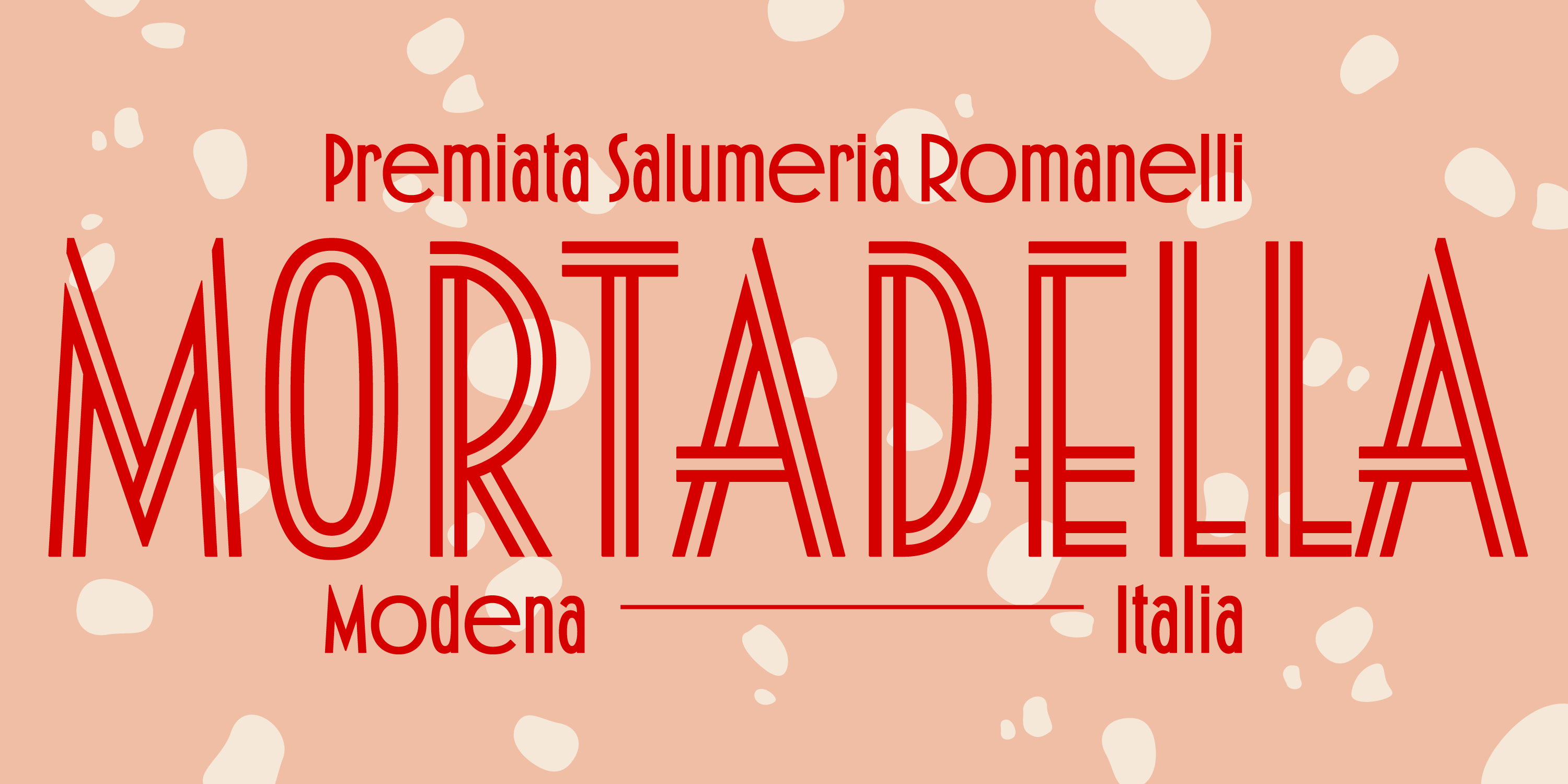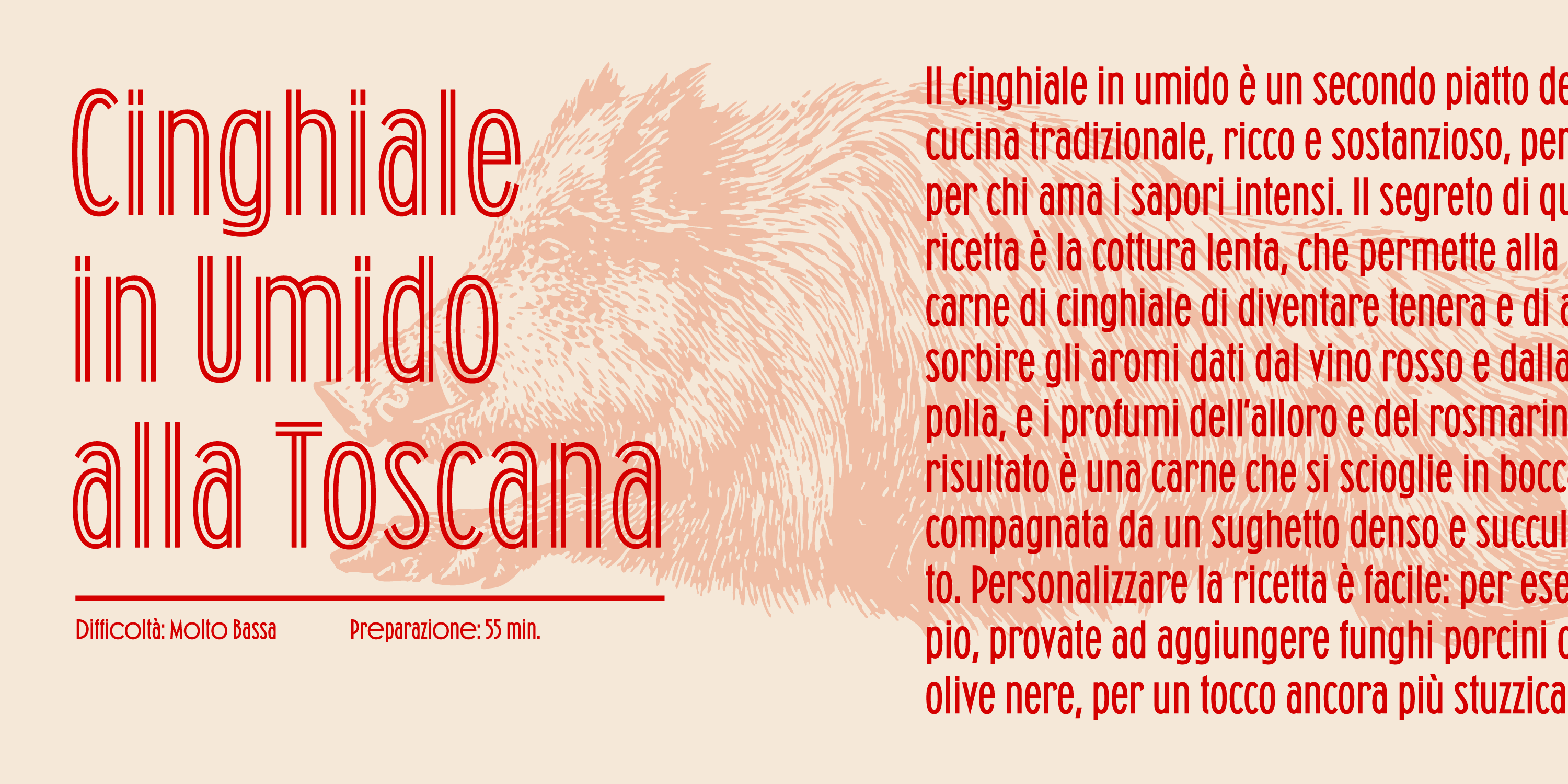
Macallè
Macallè is a bold, compressed sanserif with a notably big x-height covering over 70% of the body. It features Art Déco elements, such as the low bars of A, E, F and H which also extend beyond the stems to the left. These particularities recall Guido Modiano’s best-selling Triennale typeface (Reggiani, 1928) – even though Triennale did not include a lowercase. Another interesting feature of Macallè is the inclusion of a wide, circular version of round letters C, G, O, as well as their matching lowercase versions.
Alessandro Colizzi
Macallè was released as wood type by Xilografia Internazionale of Legnago (a town 40 km south of Verona) around 1936 and was available in sizes ranging from 4 to 20 lines – roughly equivalent to 50–250 points. It is identical to another typeface named Arancio, which is found in specimens issued by Xilografia Italiana, another wood-type manufacturer located in Verona. However, some years later, Xilografia Internazionale issued another type specimen showing Macallè and an inline version named Adigrat.
AM Macallé is remarkably faithful to the original. ‘The digital revival,’ says designer Alessandro Colizzi, ‘allowed for an optimisation of both design and spacing. OpenType features provide access to the wide circular alternatives and notably to the inline version (the former Adigrat) which is now included as a stylistic set. Matching details and proportions ensure flawless interchangeability between the styles within text settings.’
Wide round letter (ss01)
Inline - Adigrat (ss02)